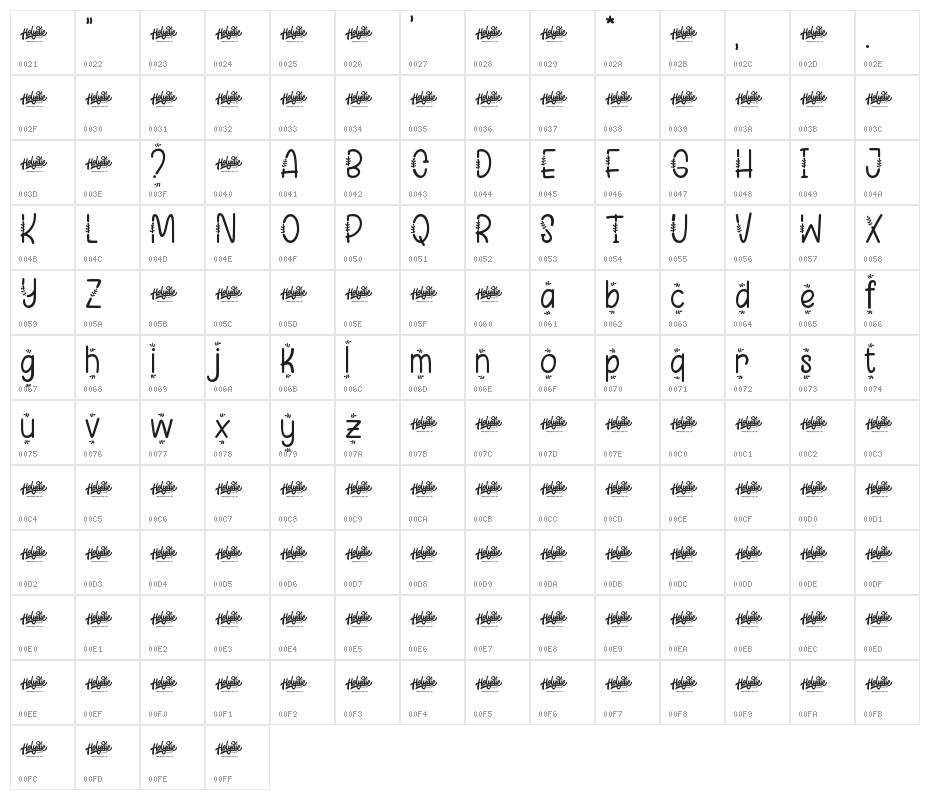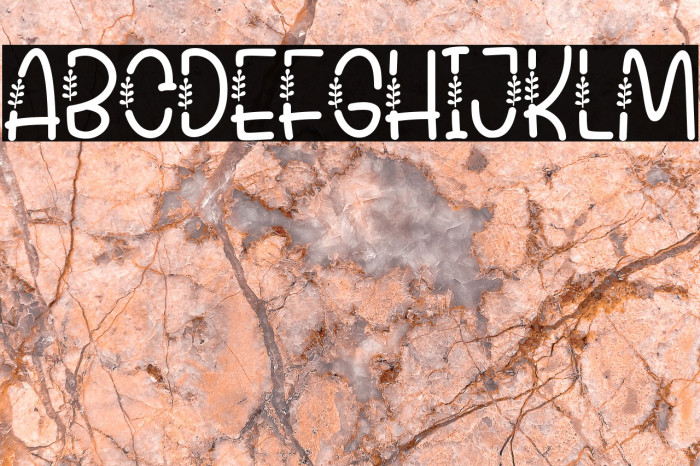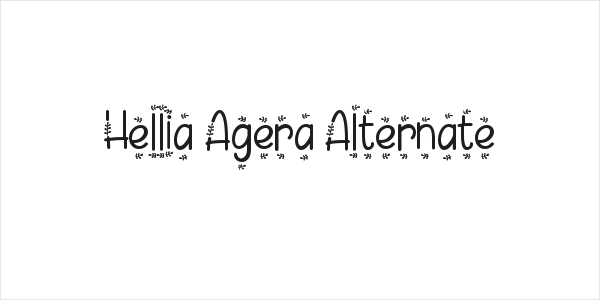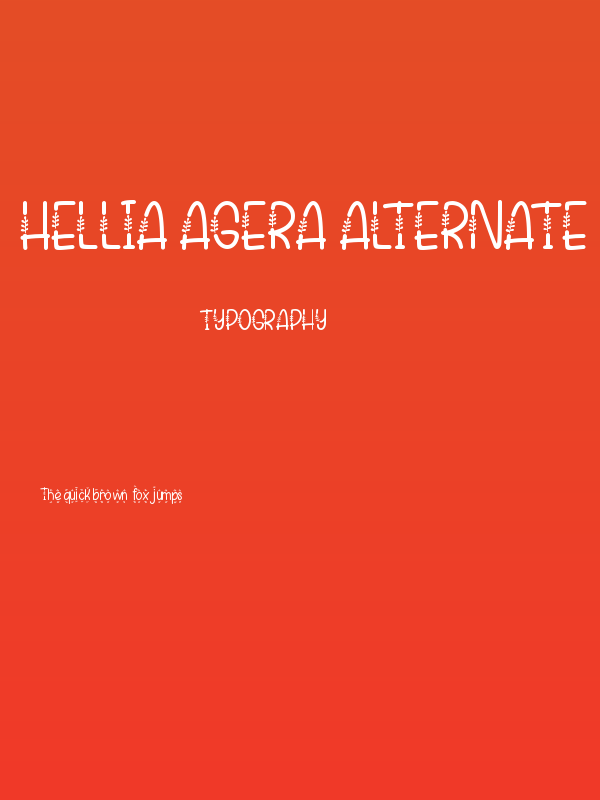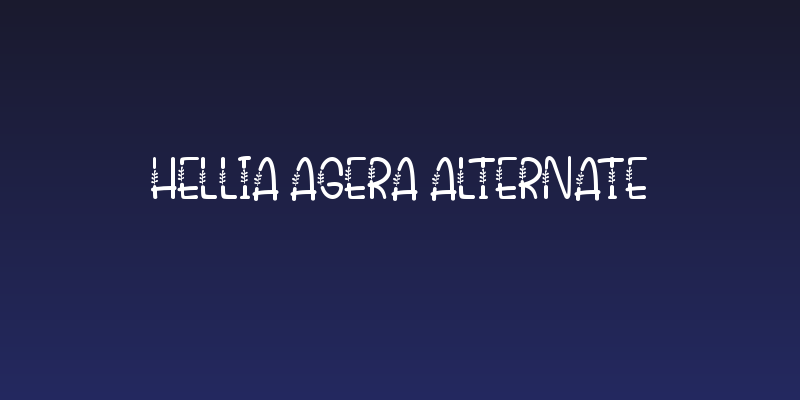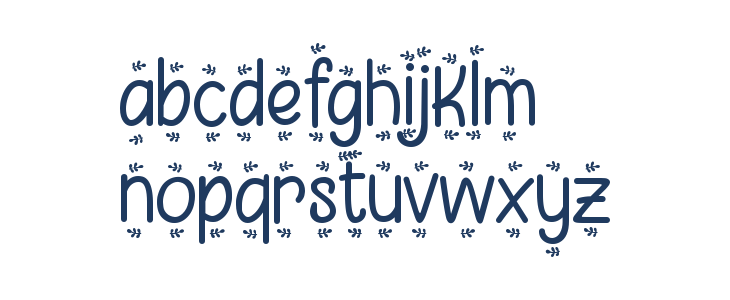
Hellia Agera Alternate Font
Hellia Agera Alternate Description
This playful and decorative font features a whimsical design with small leaf-like embellishments adorning the ends of each character. The letters are rounded and slightly elongated, giving them a friendly and approachable appearance. The font maintains a consistent stroke width, contributing to its clean and legible look. Its unique style is both eye-catching and charming, making it suitable for creative projects that require a touch of nature-inspired elegance. The font includes a full set of uppercase and lowercase letters, numbers, and a selection of special characters, ensuring versatility in its application.
Use CaseHeadlines, Logos, Creative projects
Proposed ProjectsIdeal for children's books, greeting cards, nature-themed branding, and playful invitations.